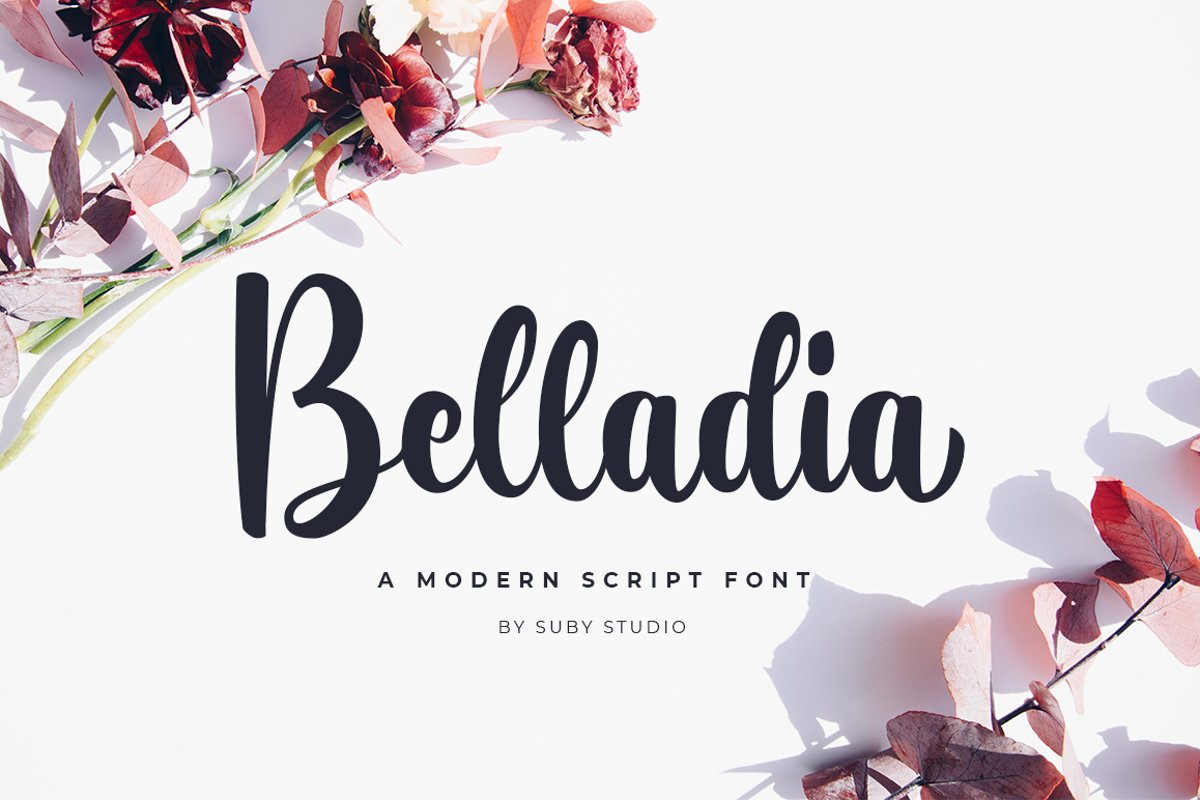
Belladia
Belladia is a modern font script with elegant looking. It’s easy and simple to use and is perfect for branding, logos, greeting cards, wedding Stationery, quotes, and much more!